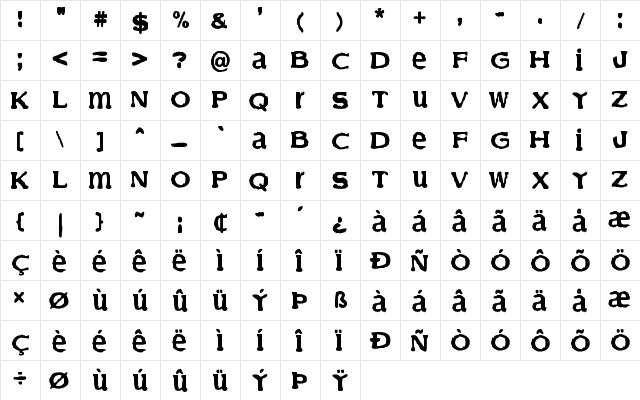
Finder Regular
Design Context for Finder Typeface
Finder is a composed and adaptable typeface that performs quietly and consistently across a wide range of design contexts.